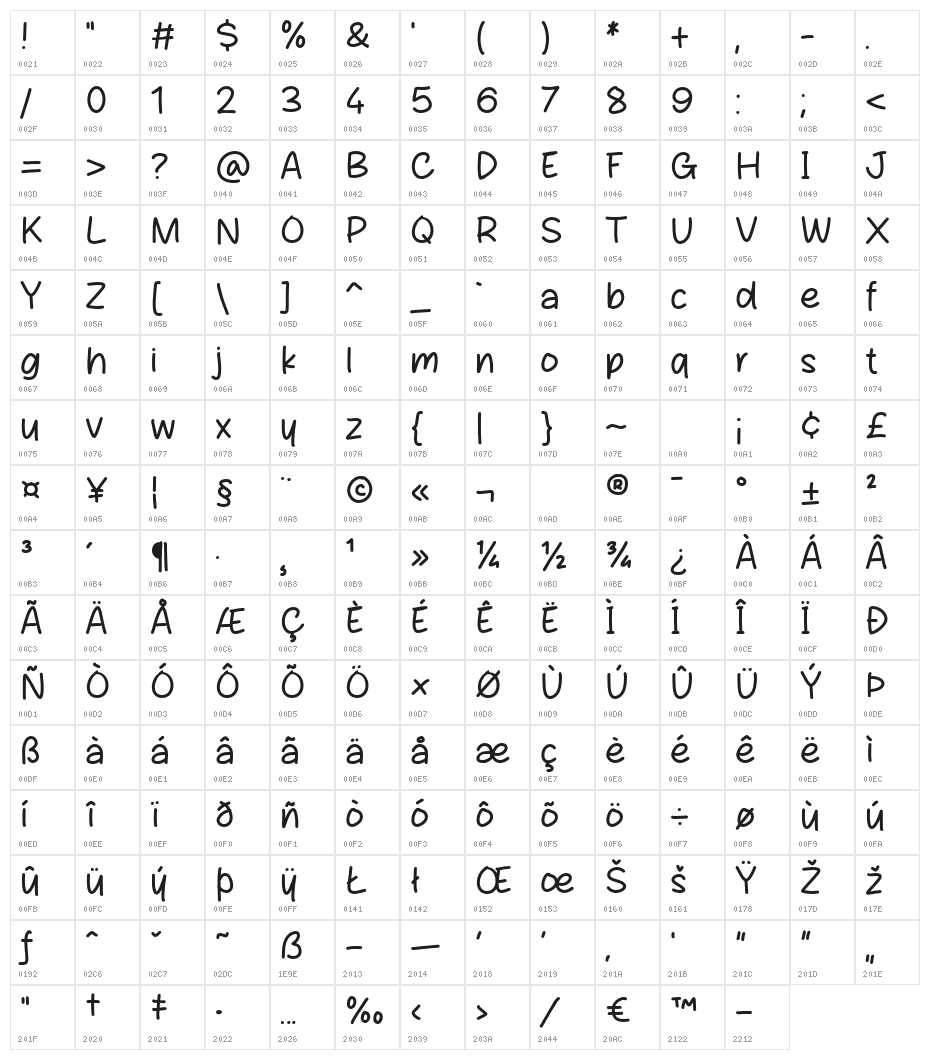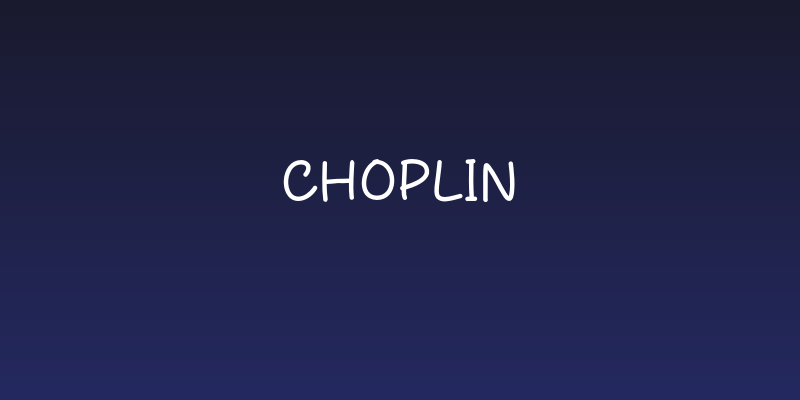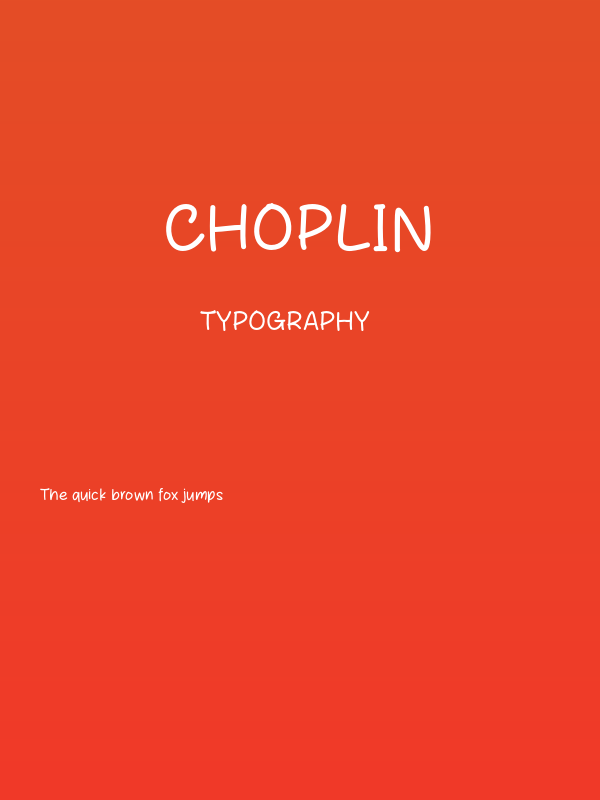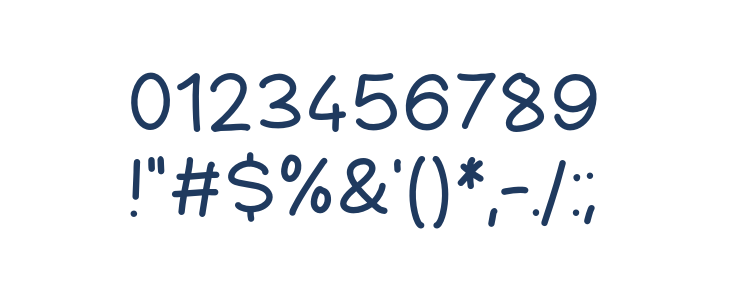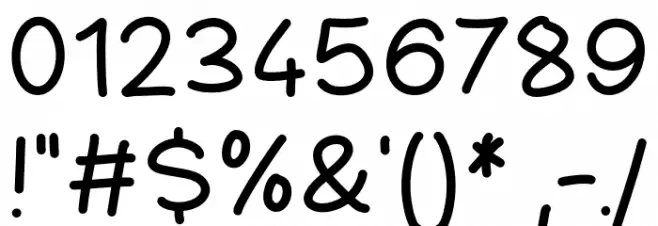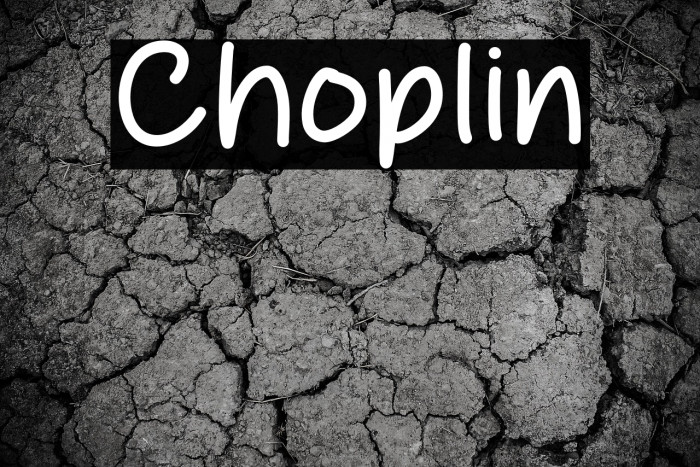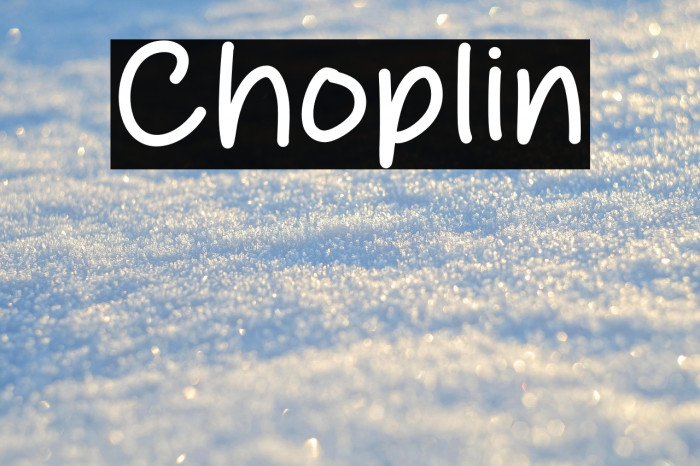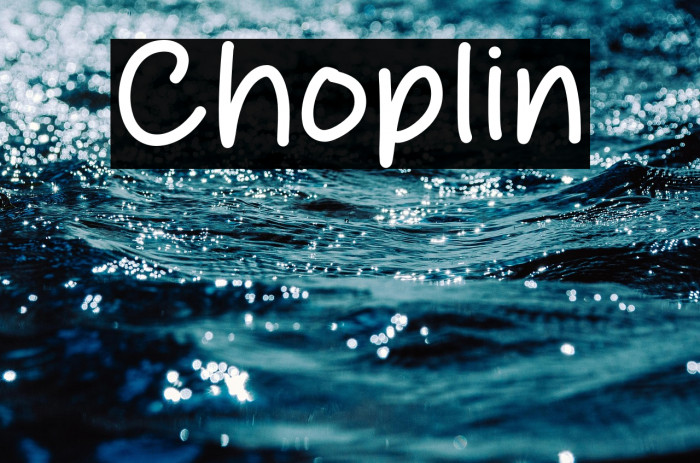
Choplin Font
Choplin Description
This font features a playful and informal handwritten style, characterized by its rounded and smooth letterforms. The strokes are consistent in thickness, giving it a uniform appearance. The characters are slightly tilted, adding a dynamic and lively feel. The font maintains a casual and friendly tone, making it suitable for projects that require a personal touch. The numerals and special characters are designed to match the overall aesthetic, ensuring coherence across different uses.
| Use Case | Headlines, Informal text, Branding |
| Proposed Projects | Ideal for children's books, greeting cards, informal invitations, and playful branding. |